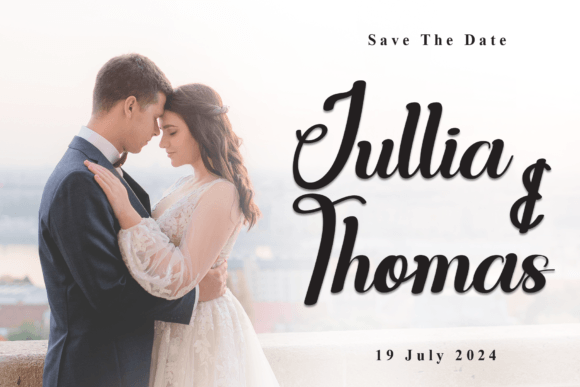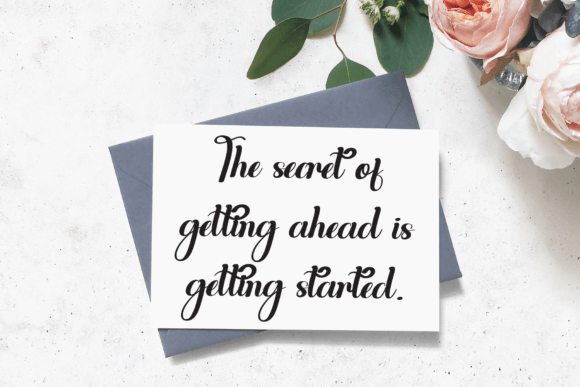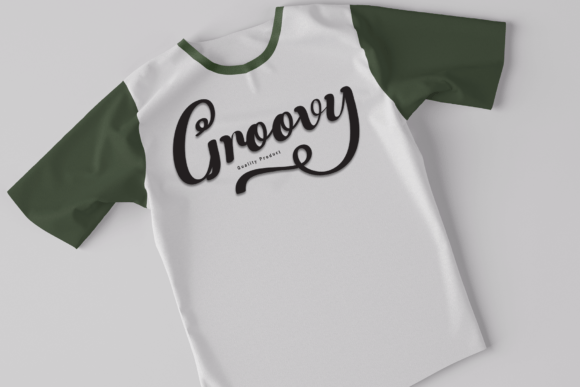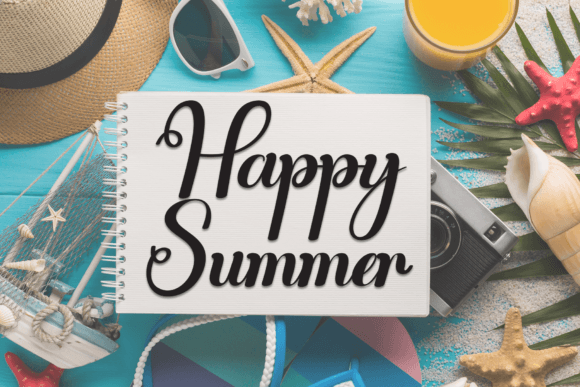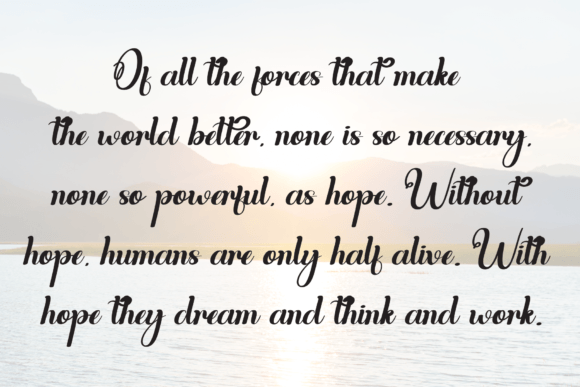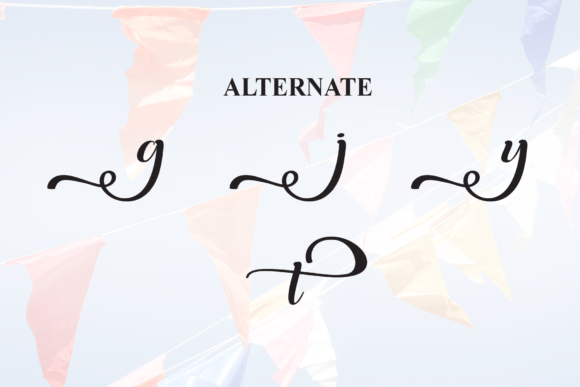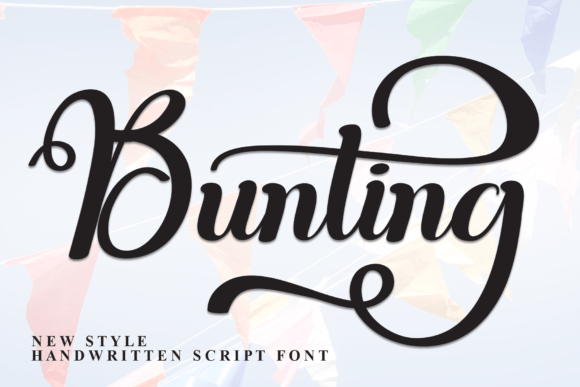
The Bunting Font: A Timeless, Handwritten Masterpiece
I still remember the moment I fell in love with the Bunting font. I was working on a project for a client who wanted a elegant, yet modern look. I had spent hours scouring the internet for the perfect font, but nothing seemed quite right. That was until I stumbled upon Bunting. Its exquisite, handwritten design immediately caught my eye, and I knew I had found the one. In this article, I’ll share my experience with Bunting, its features, and how to make the most of it in your designs.
A Personal Review: What I Love About Bunting
Bunting has quickly become one of my go-to fonts, and for good reason. Here are some things I love about it:
• ✨ Classy calligraphic influences: Bunting’s design is rooted in traditional calligraphy, giving it a sophisticated and elegant feel.
• ✅ Contemporary and fresh: Despite its classic influences, Bunting feels modern and fresh, making it perfect for a wide range of design projects.
• 💫 Highly legible: Bunting’s clear and flowing design makes it easy to read, even at smaller font sizes.
While Bunting is an amazing font, it’s not perfect. Here are a few things to keep in mind:
• 🤔 Limited use in very small font sizes: While Bunting is legible at smaller font sizes, it may not be the best choice for very small text, such as footnotes or captions.
• ⚠️ Some OpenType features may not work in all applications: Bunting supports advanced OpenType features, but these may not work in all design software or platforms.
Bunting was designed by a talented typographer who wanted to create a font that would evoke the feeling of luxury and sophistication. Inspired by traditional calligraphy, the designer aimed to create a modern, yet timeless font that would be perfect for a wide range of design projects.
Q: What type of projects is Bunting best suited for?
A: Bunting is perfect for projects that require a touch of elegance and sophistication, such as wedding invitations, branding, and packaging design.
Q: Does Bunting support OpenType features?
A: Yes, Bunting supports advanced OpenType features, such as swashes, ligatures, and stylistic alternates.
Q: Is Bunting suitable for body text?
A: While Bunting is legible, it’s best suited for headings and titles. For body text, a clearer font may be more suitable.